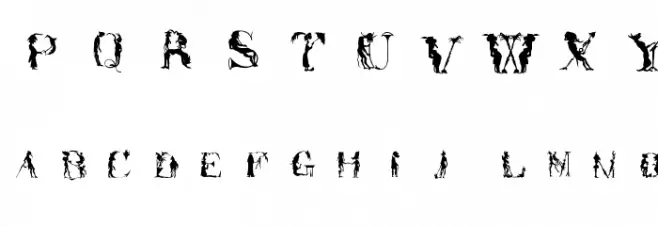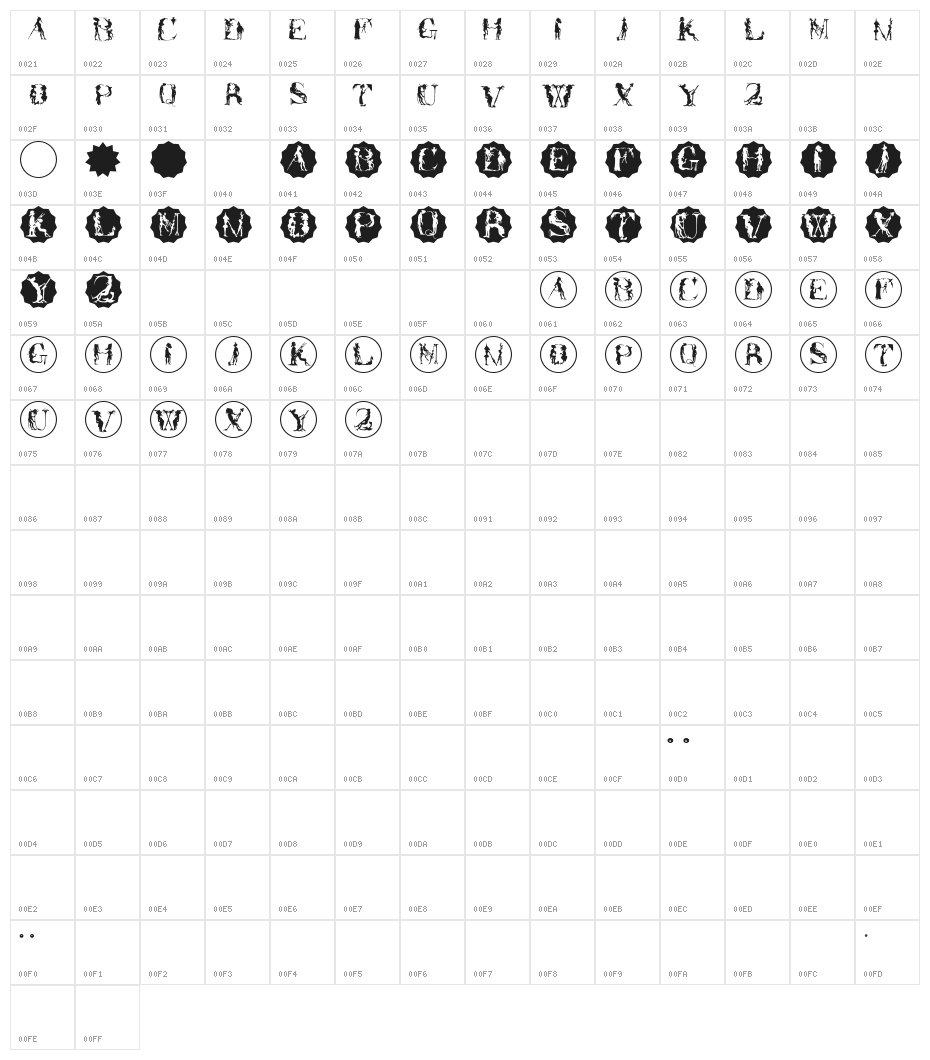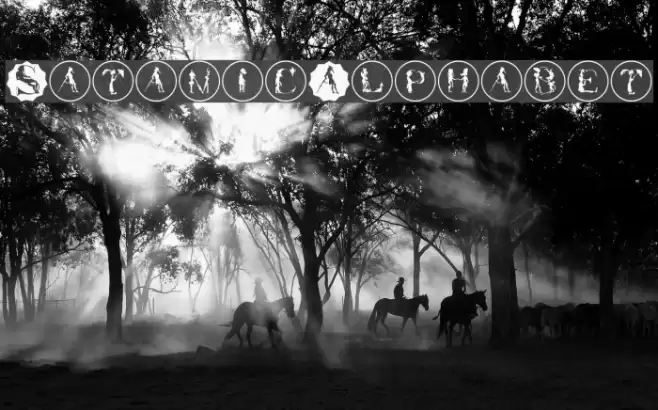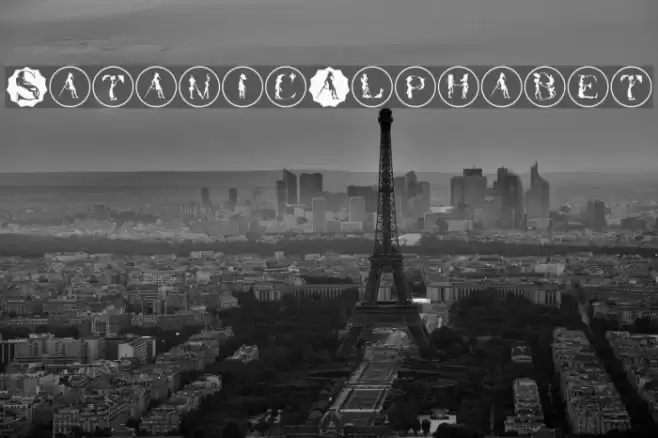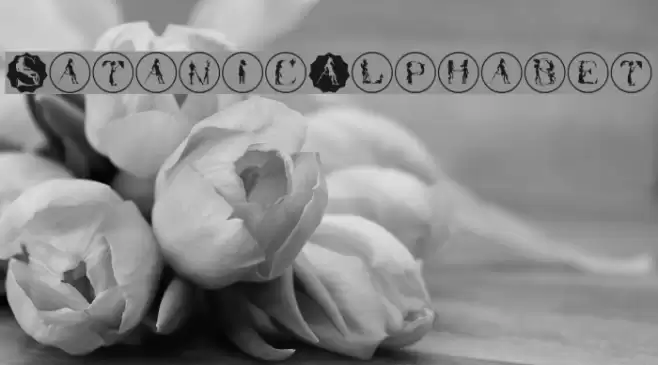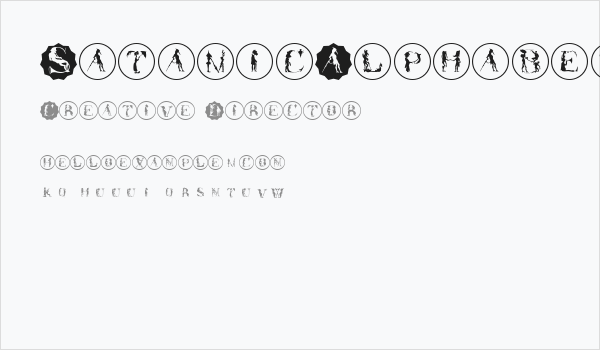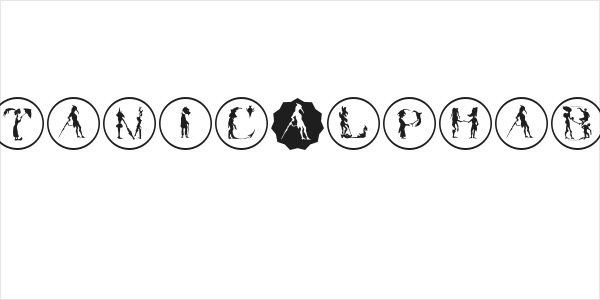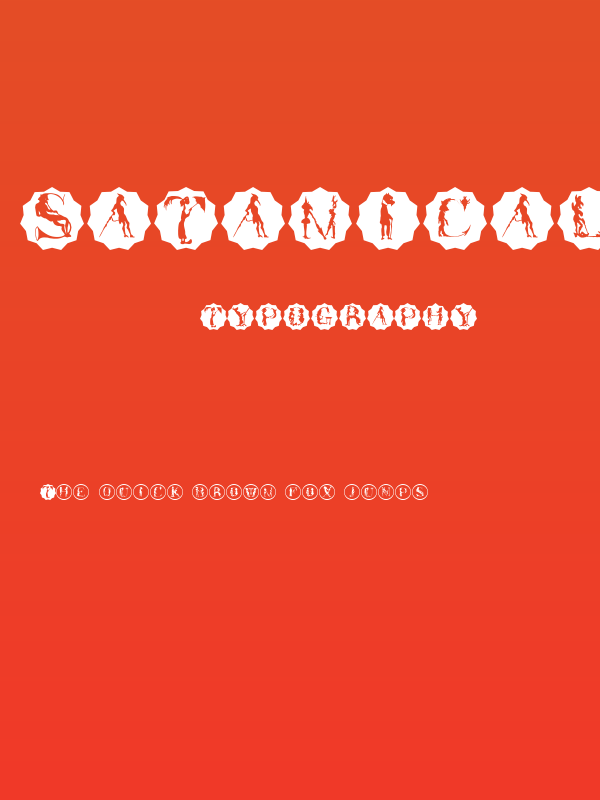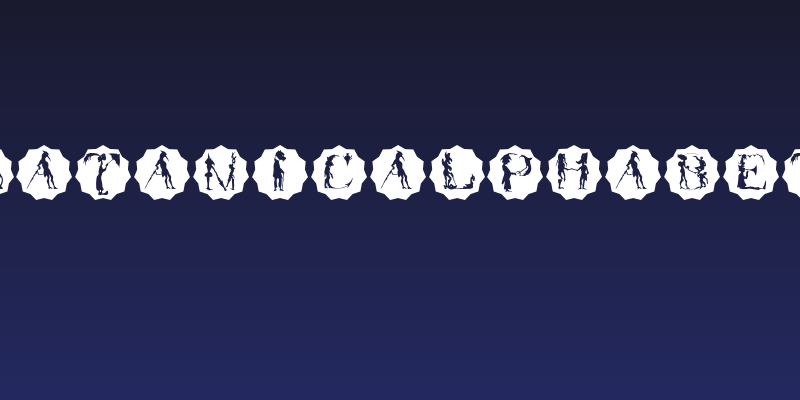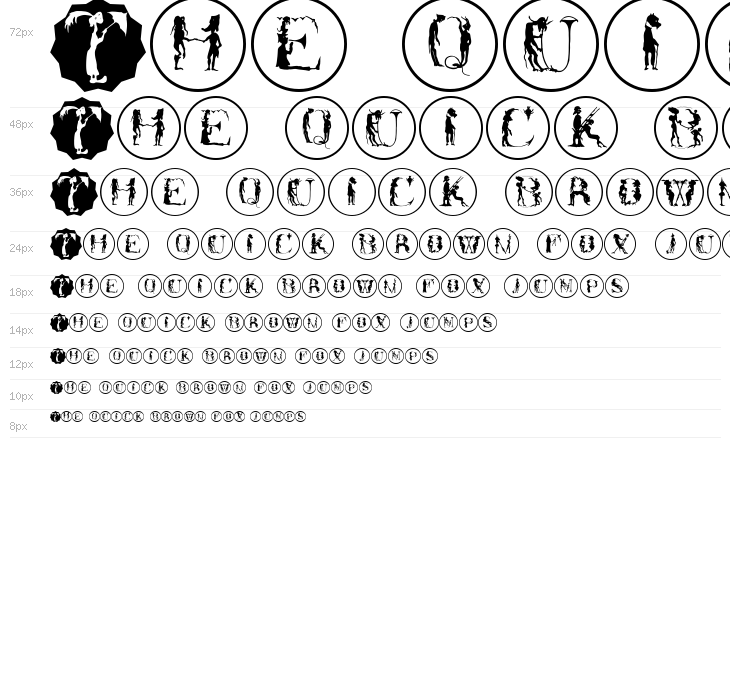
SatanicAlphabet Font
SatanicAlphabet Description
This font features a highly decorative and intricate design, incorporating gothic and occult elements. Each letter is uniquely crafted with dark, mysterious motifs, often resembling twisted branches or demonic figures. The uppercase letters are bold and striking, set against a solid black background, creating a stark contrast that enhances their dramatic appearance. The lowercase letters maintain the same thematic style, though they are slightly less imposing. The numbers and special characters follow suit, each designed with the same attention to detail and thematic consistency. This font is perfect for projects that require a dark, eerie, or mystical aesthetic.
| Overall Style | Gothic, Dark, Mystical |
| Proposed Projects | Ideal for horror-themed posters, gothic event invitations, album covers for metal bands, or any project needing a dark, mystical touch. |